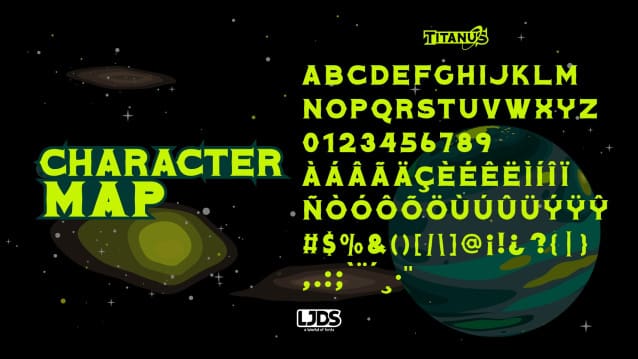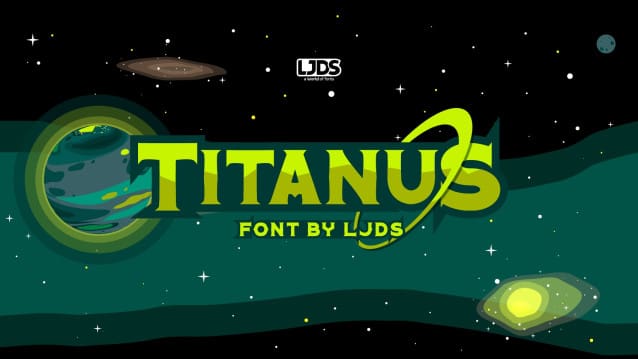
Titanus Font
Titanus Font is a classic serif style typeface, based on the 1993 typeface. This font is perfect for stickers, retro projects, craft projects, shirts, svg designs, procreate designs, branding, blogs, logos, invitations and more!